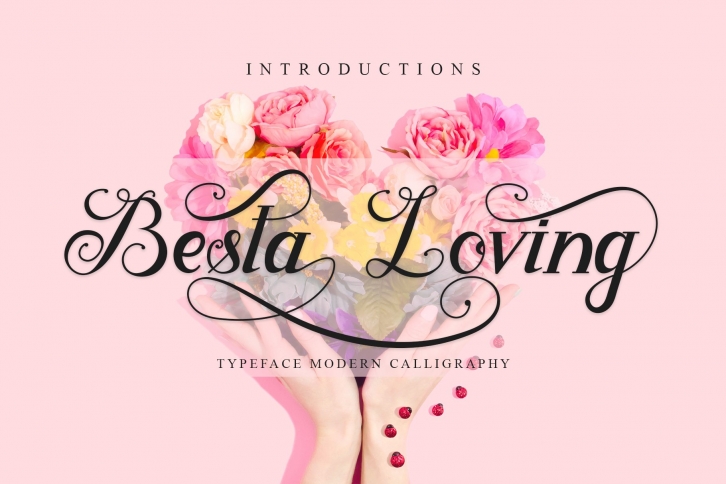
Besta Loving is a great font that was designed by Yan Studio. Imagine the amount of combinations you can create using this font! The archive is 21.33 MB and it was released on March 7, 2021. Besta Loving looks beautiful on wedding invitations, greeting cards, logos, posters, labels, t-shirt designs, logos, business cards and is perfect for use in ink or watercolor works, fashion, magazines, packaging and food menus, children's books and more!